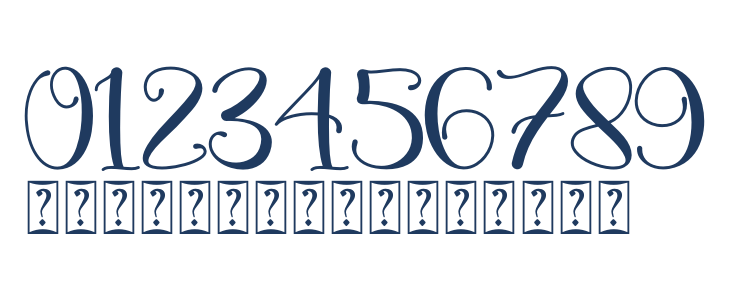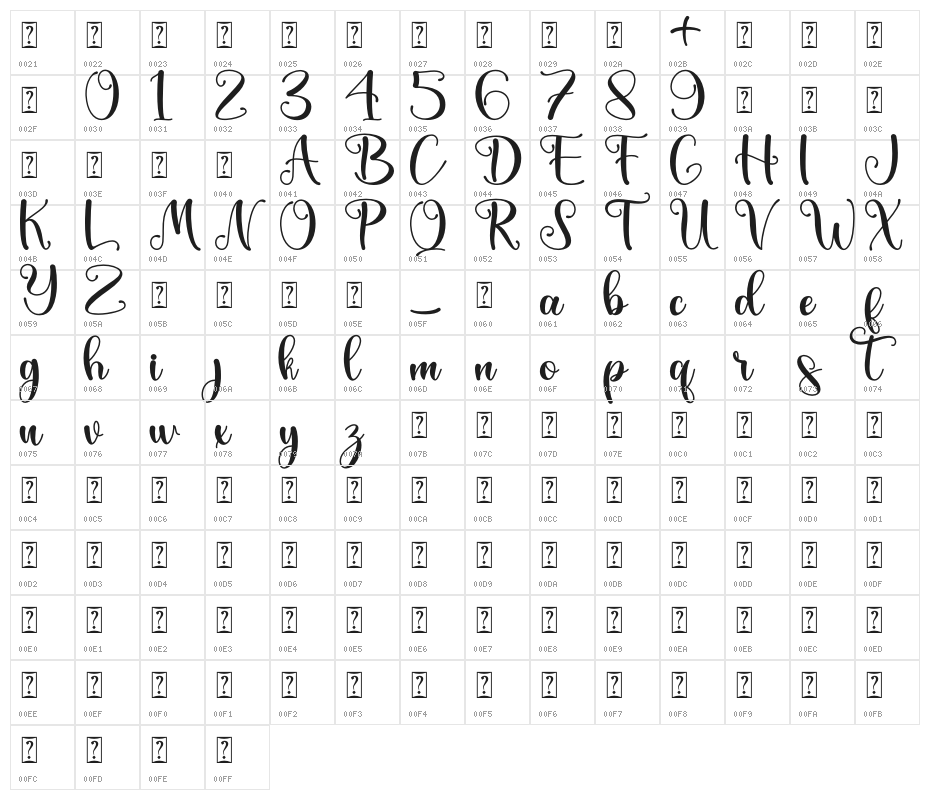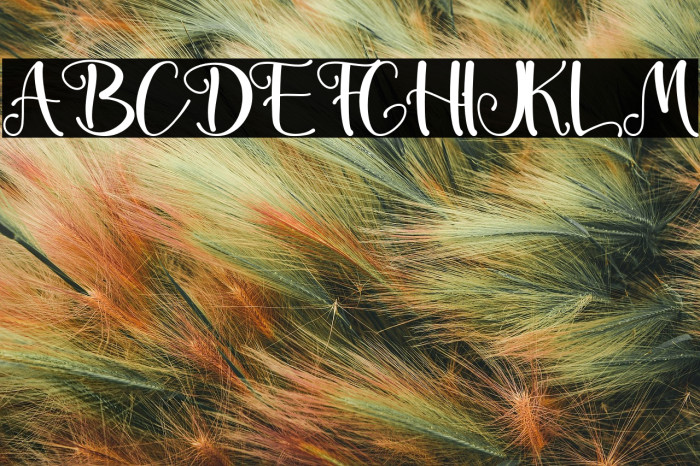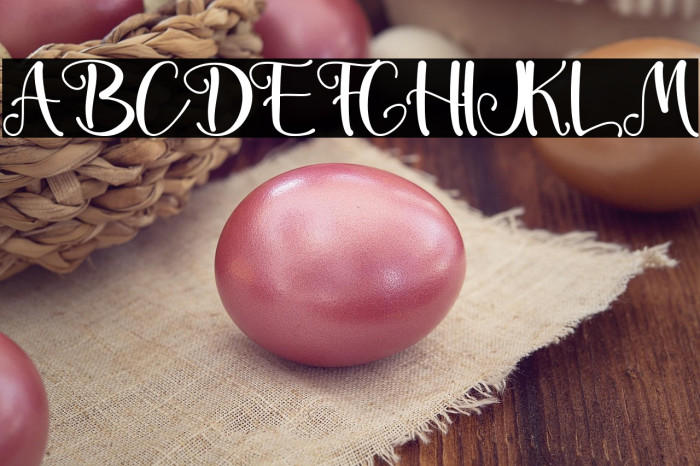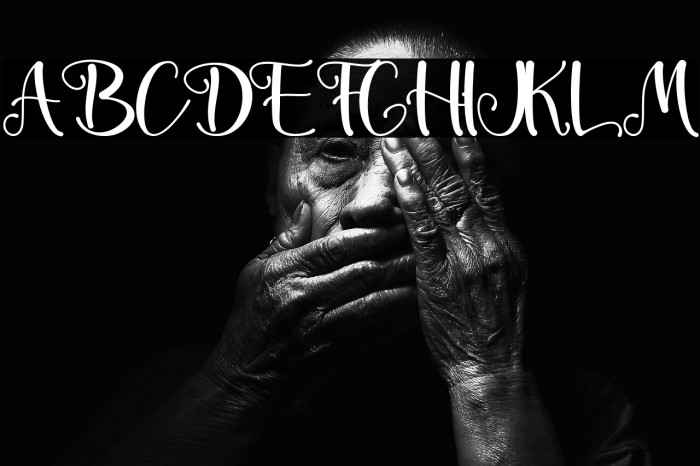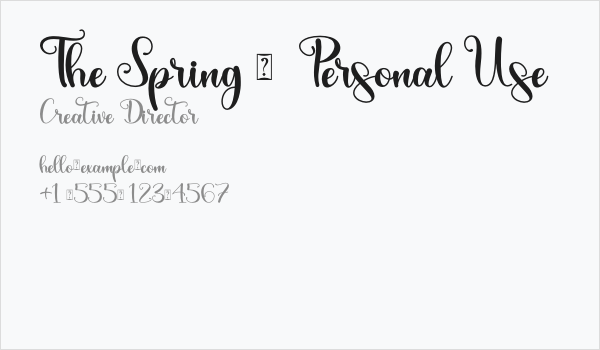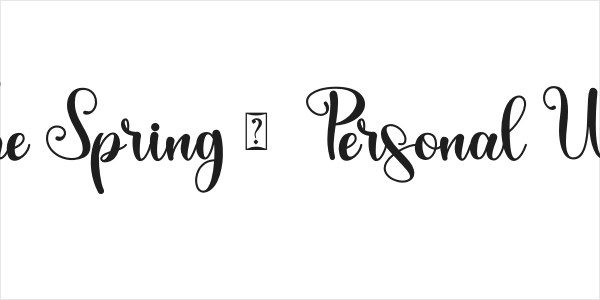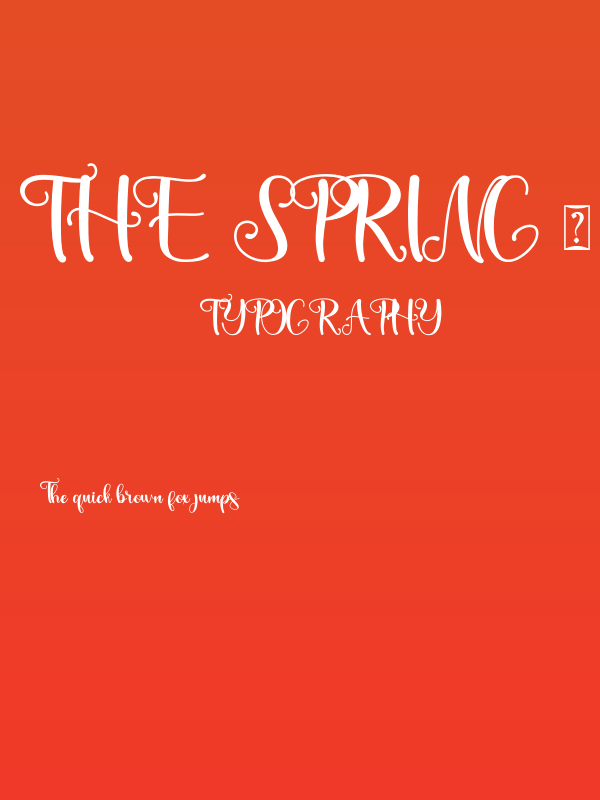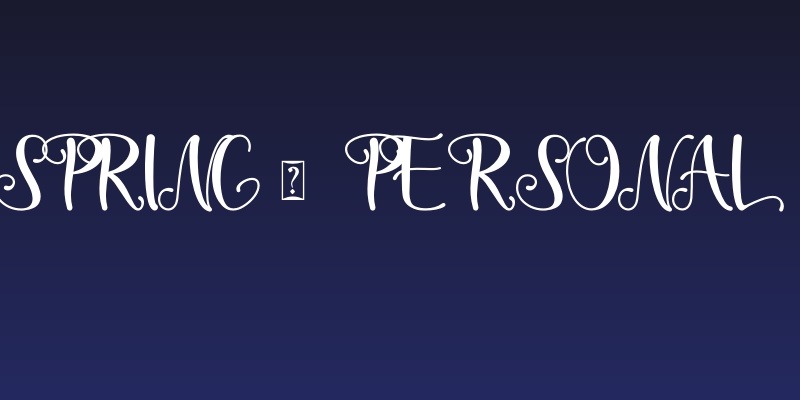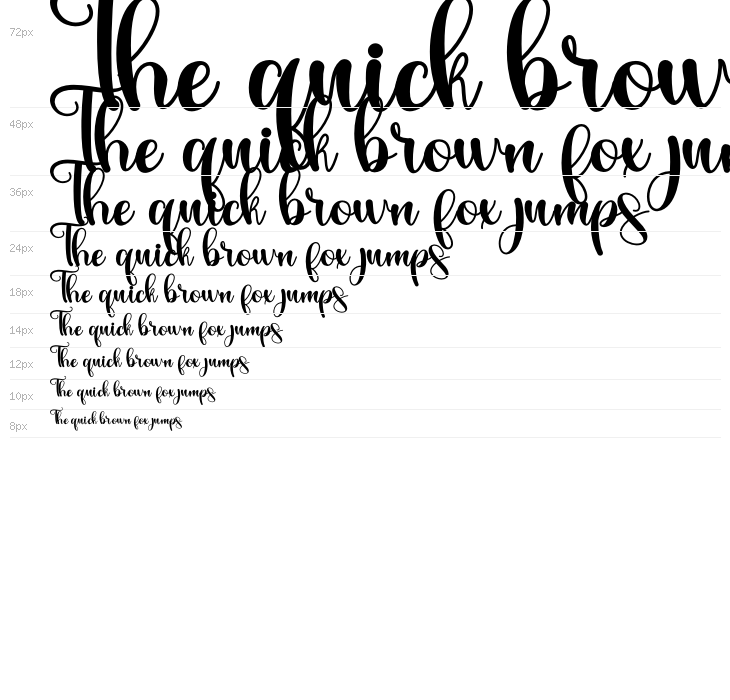
The Spring - Personal Use Font
This font features an elegant and flowing script style, characterized by its ornate and decorative letterforms. The uppercase letters exhibit graceful loops and swirls, creating a sense of sophistication and charm. The lowercase letters maintain a consistent fluidity, with some characters extending below the baseline, adding to the font's whimsical nature. The numerals are bold and maintain the same decorative flair, making them stand out. The special characters are uniquely styled to match the overall aesthetic, ensuring a cohesive look across all elements. This font is perfect for projects that require a touch of elegance and creativity.
ContrastMedium
Overall StyleDecorative
Use CaseLogos, Invitations, Decorative text
Proposed ProjectsIdeal for wedding invitations, greeting cards, branding, and logo design.